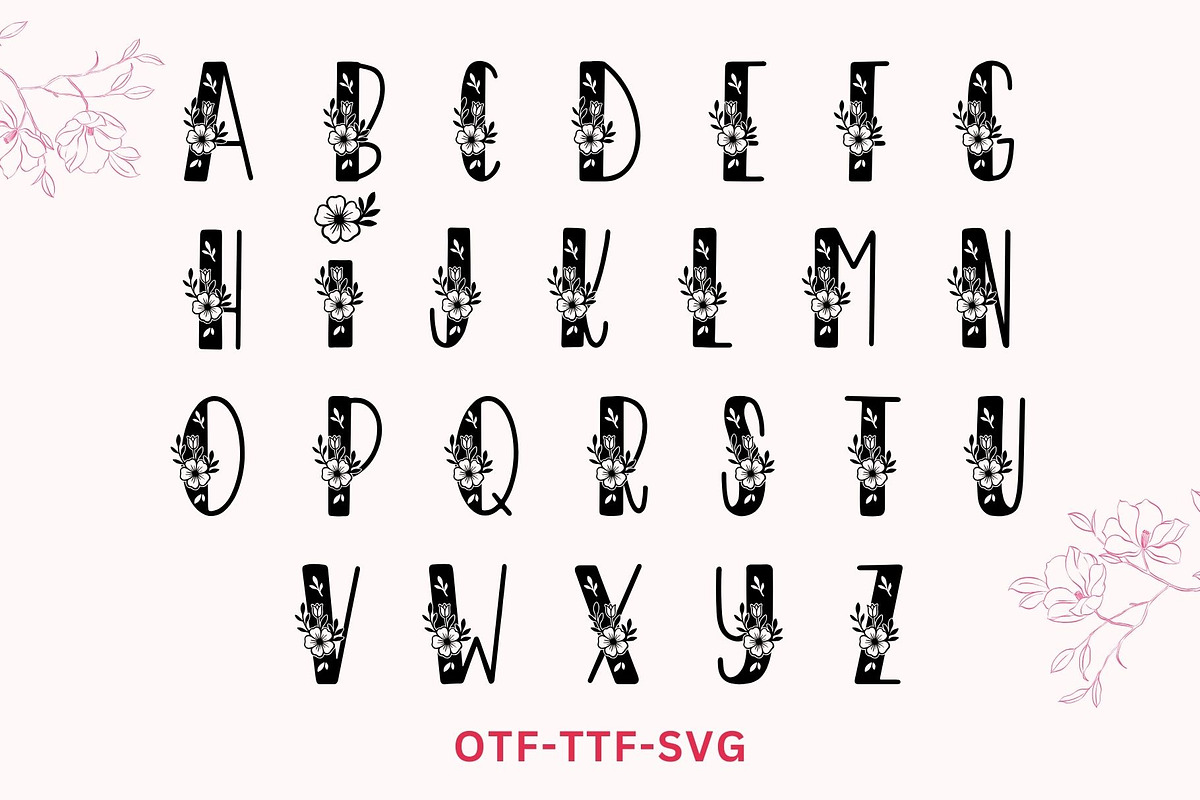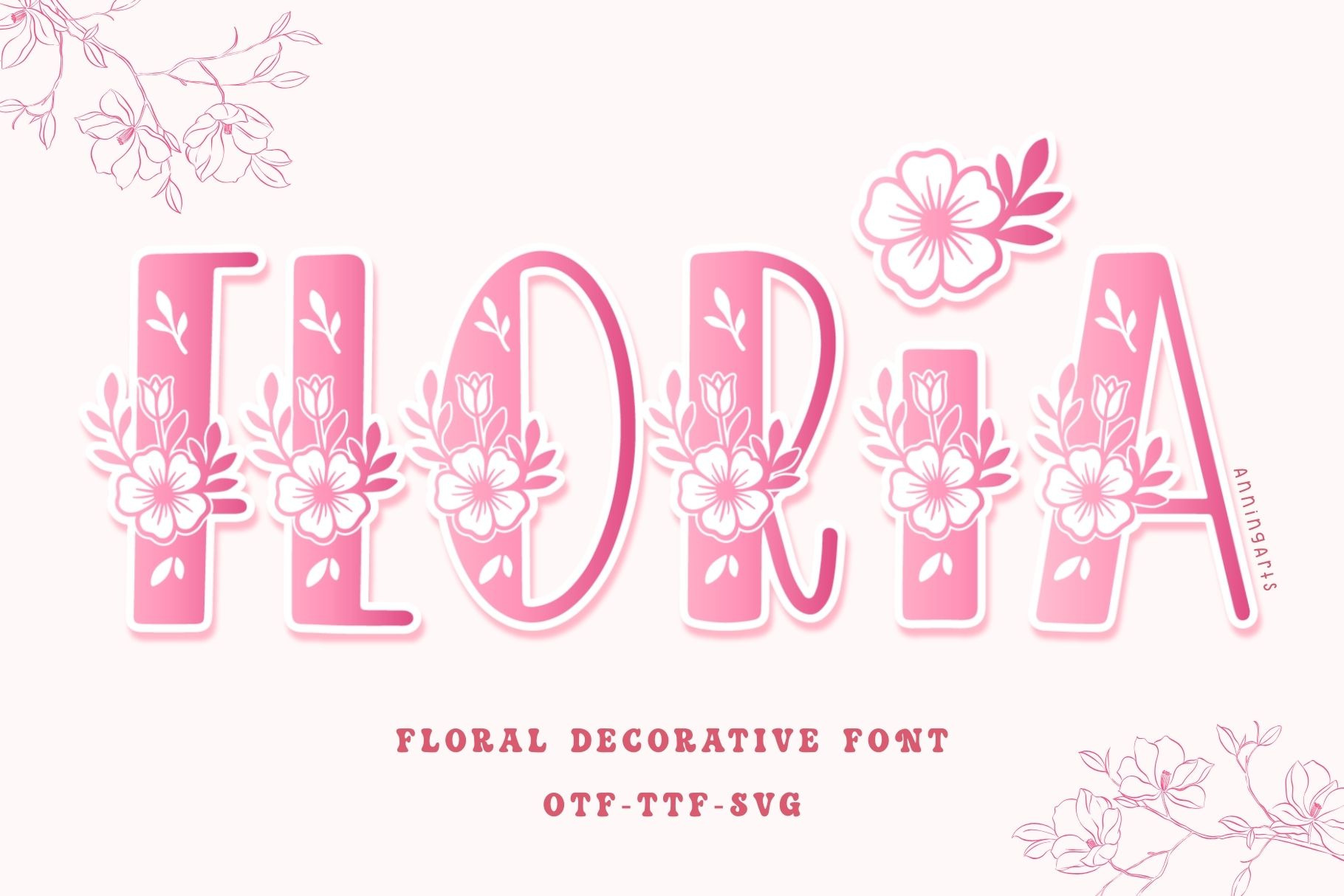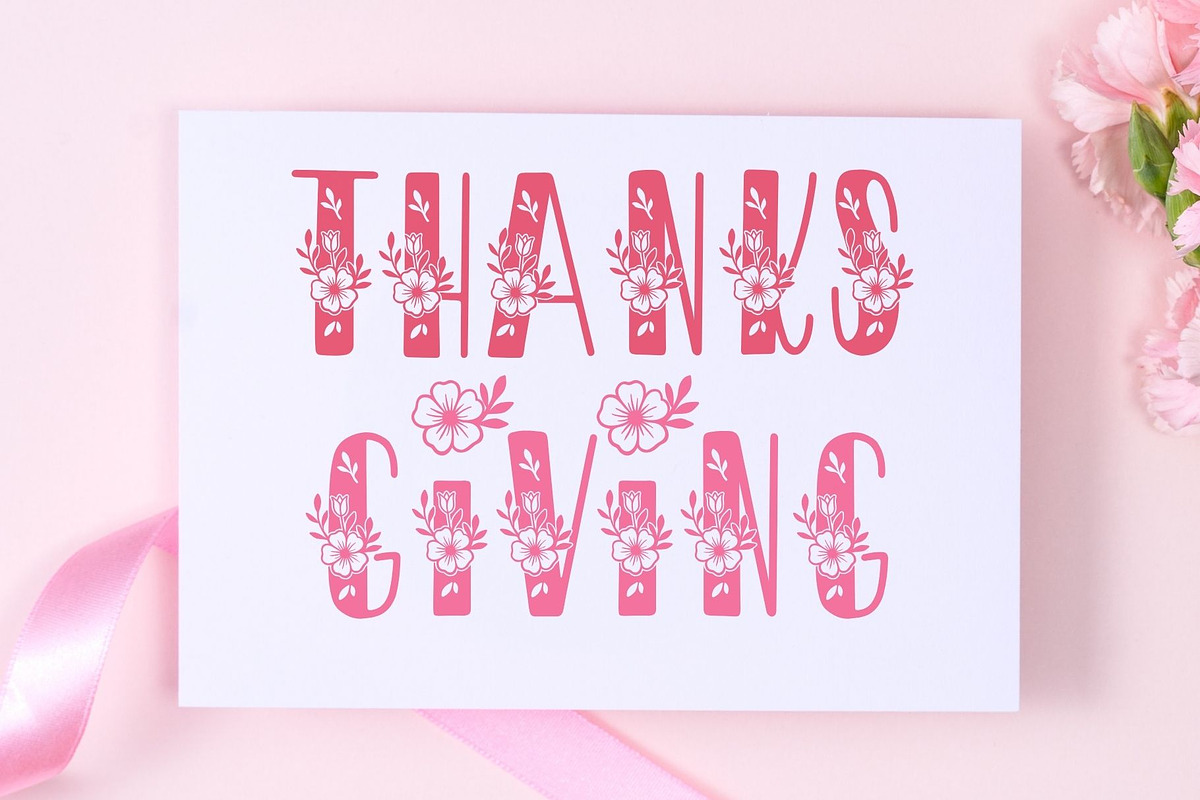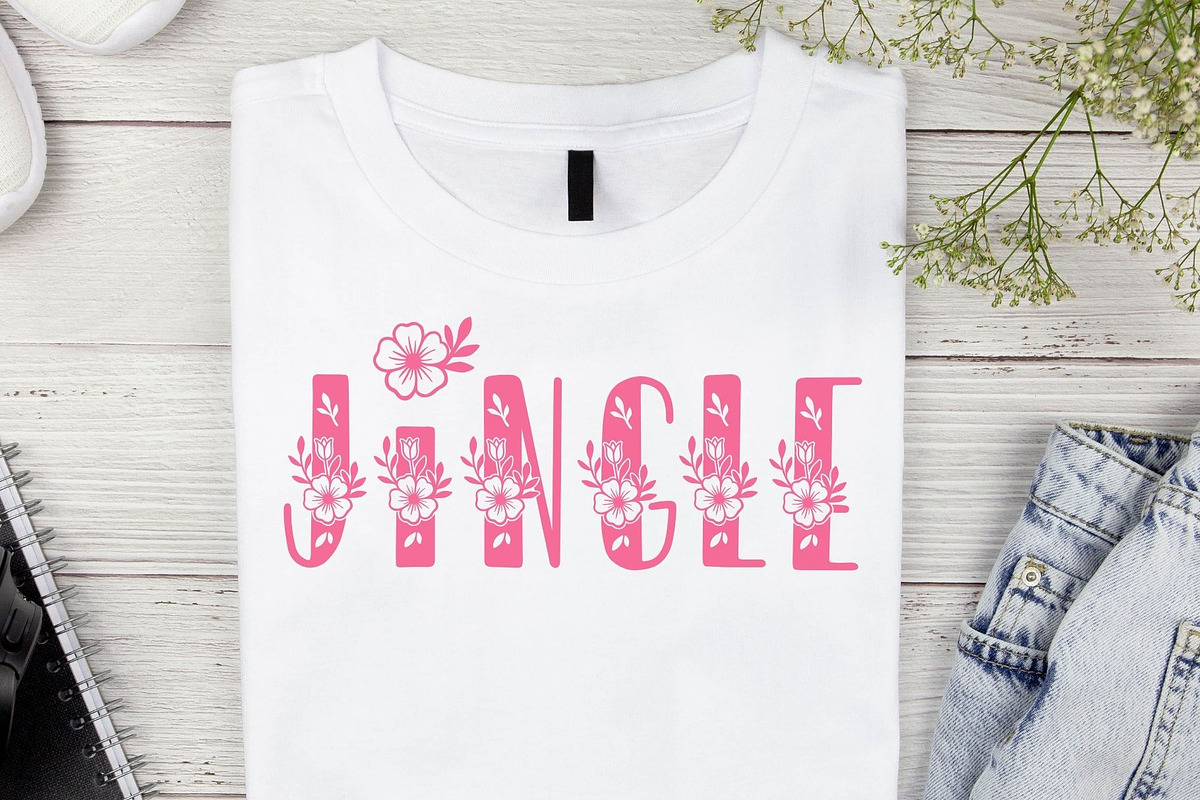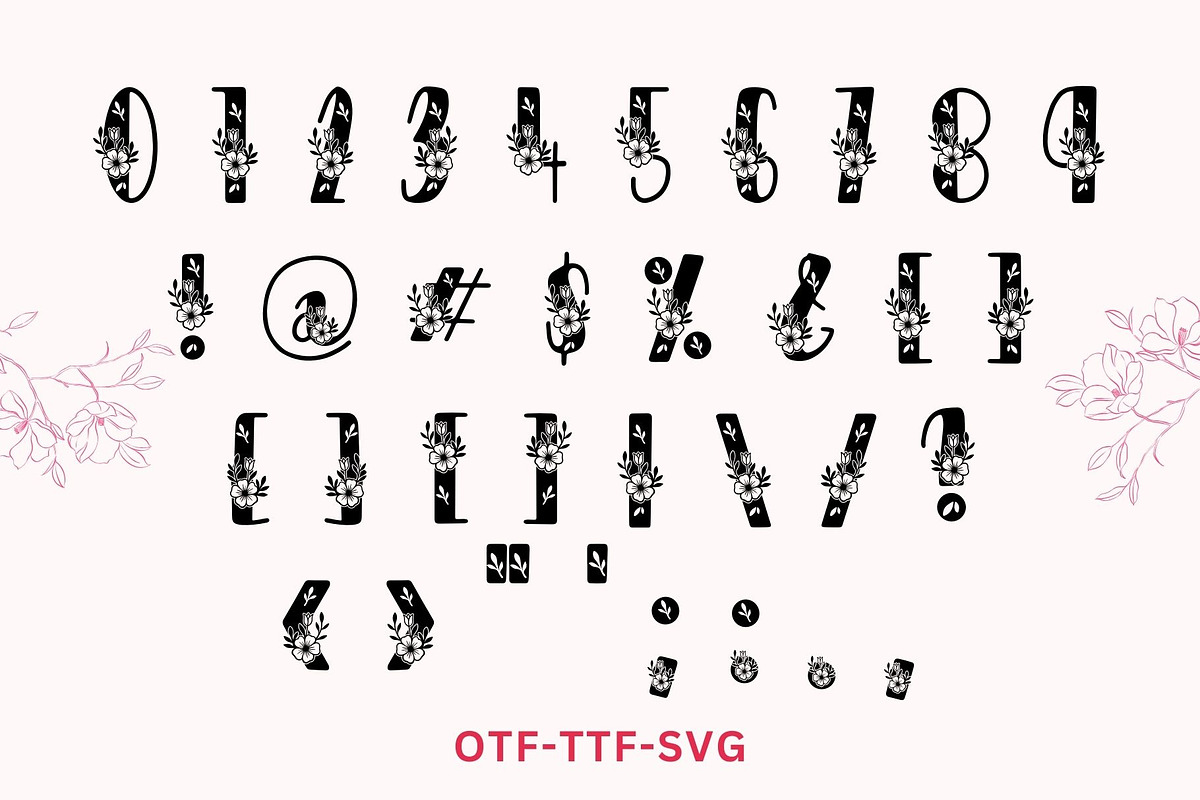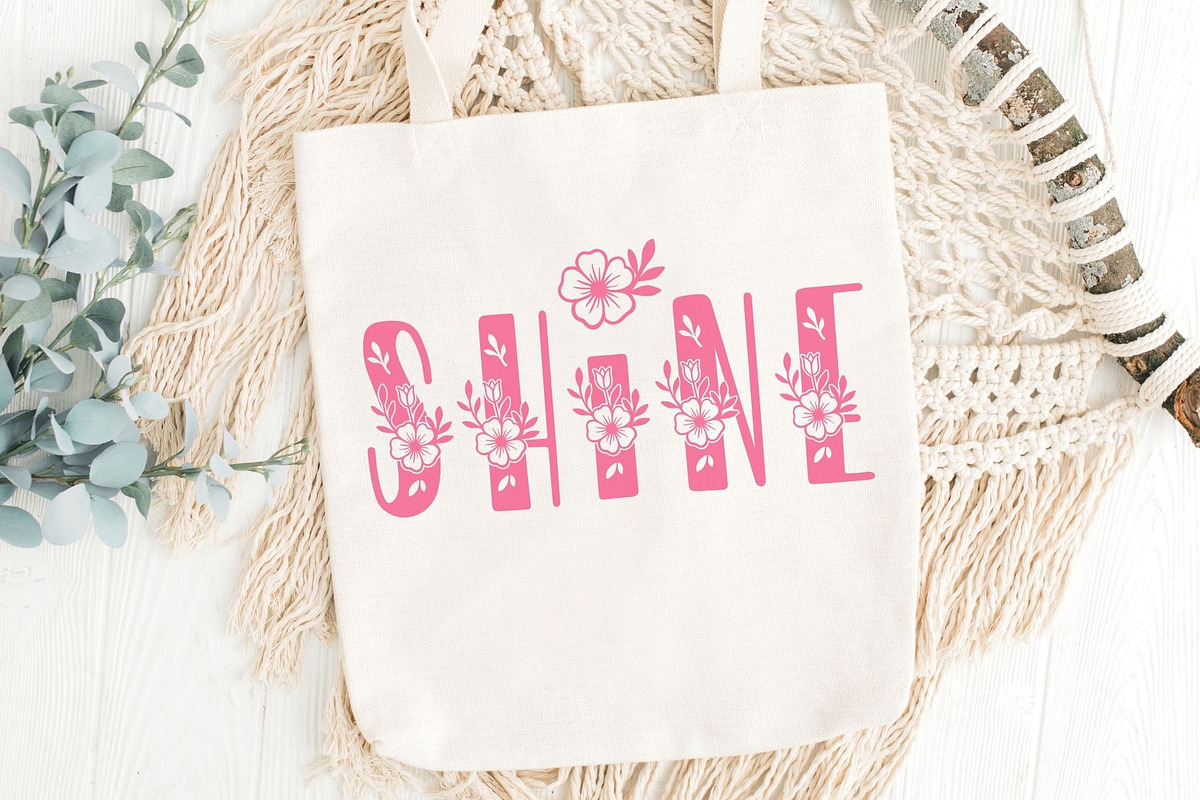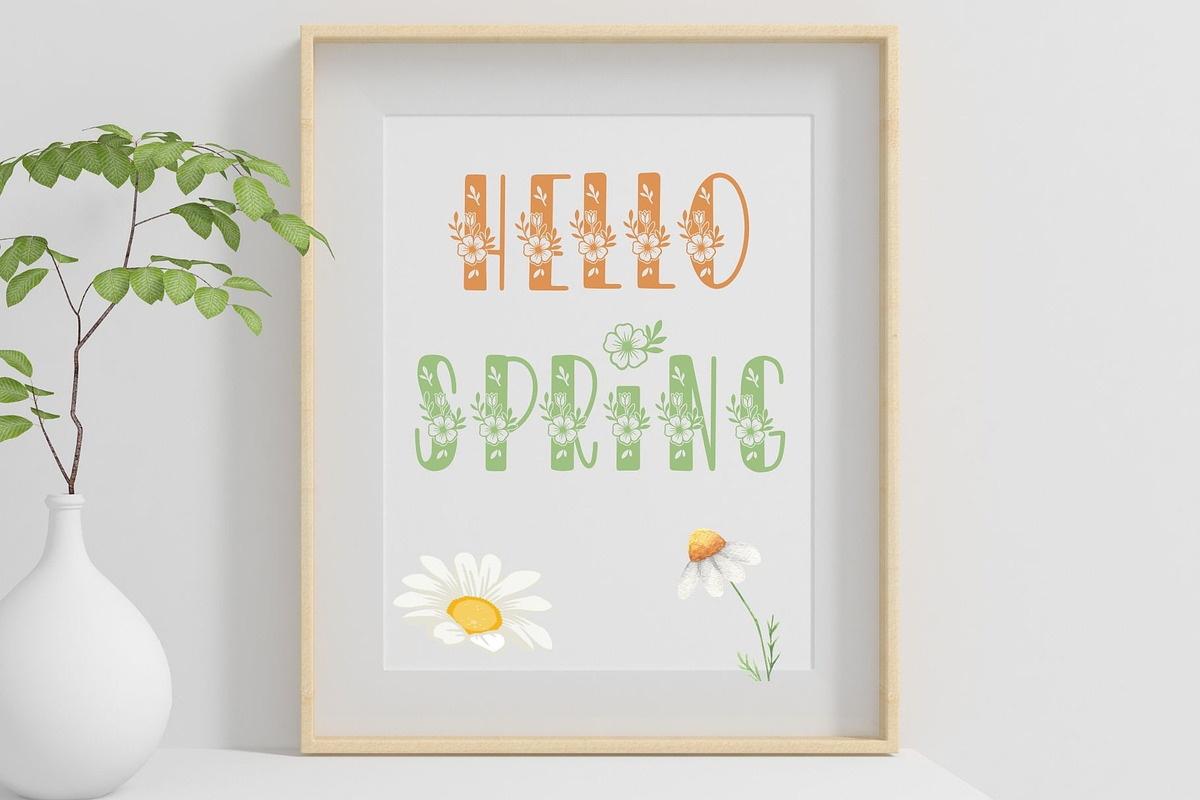
Floria – Floral Decorative Font
Floria is a floral decorative font with exquisite botanical designs on each letter. Perfect for wedding stationery, logos, tote bags, apparel, and seasonal crafts, this font offers elegance and charm for any creative project. Ideal for Cricut, Silhouette, and print work, Floria makes your designs bloom beautifully.